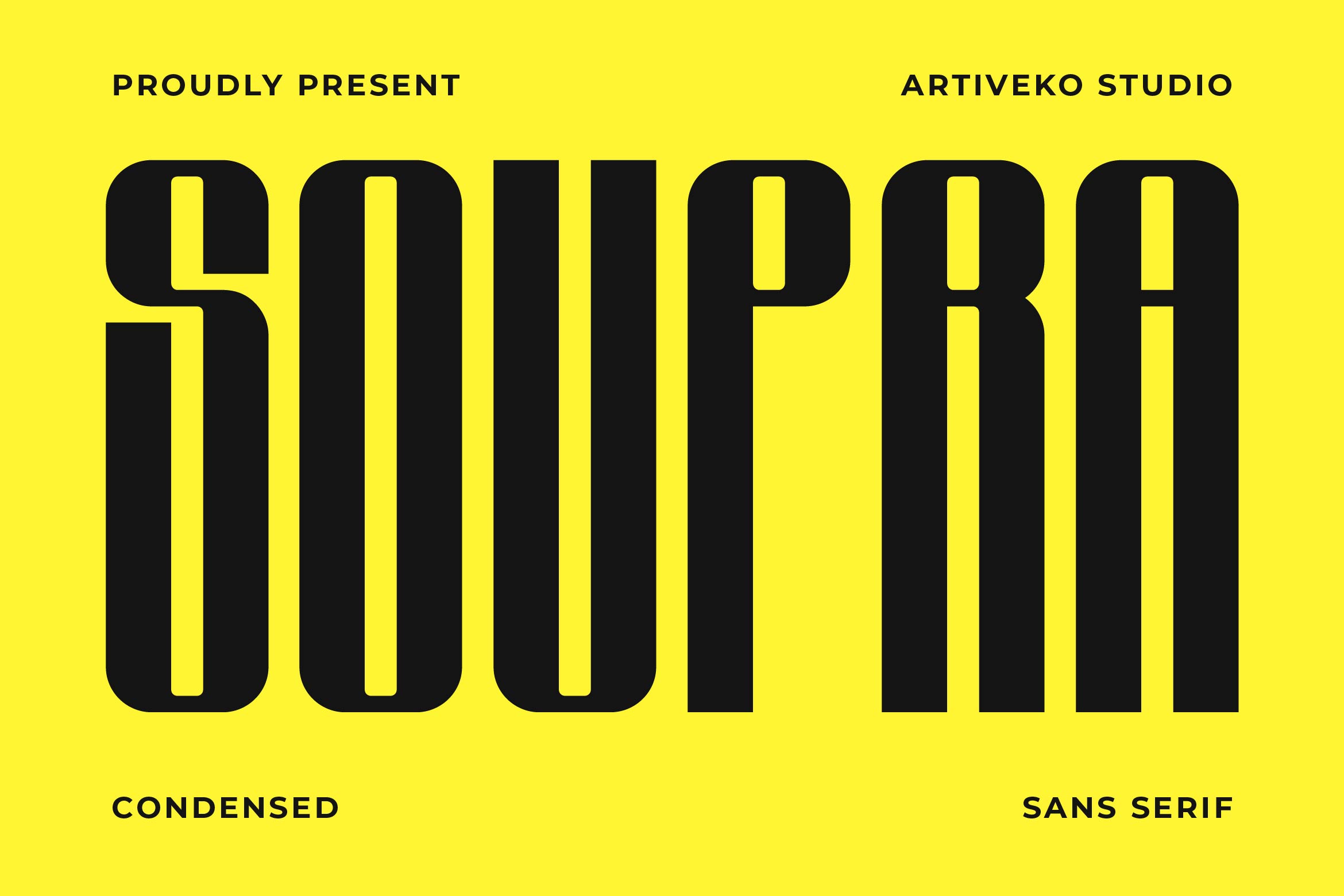
- Soupra Modern Condensed Sans Font
Soupra is a bold and stylish sans serif font designed for creatives who seek originality and sophistication. With its clean lines, unique curves, and balanced proportions, Soupra combines functionality with artistic flair, making it ideal for branding, editorial layouts, posters, packaging, and digital graphics.
Its modern yet distinctive design ensures excellent readability while giving your typography a fresh and memorable look. Perfect for both headlines and minimalist text, Soupra adapts seamlessly across diverse design applications.
The font includes uppercase and lowercase letters, numerals, punctuation, multilingual support, and a range of stylistic alternates for creative customization.
Bring bold creativity to your work with Soupra — the sans serif font that merges elegance and innovation in every detail.